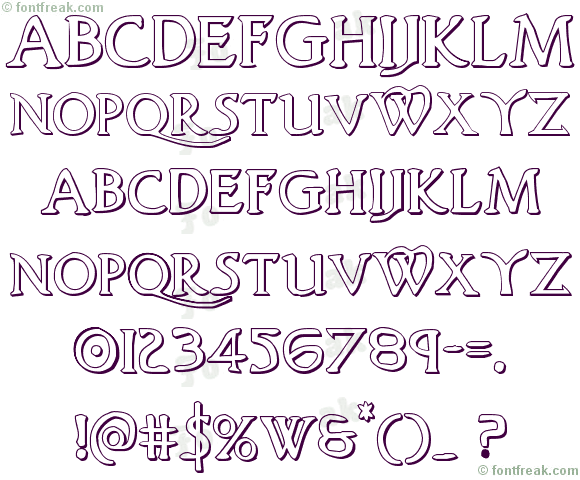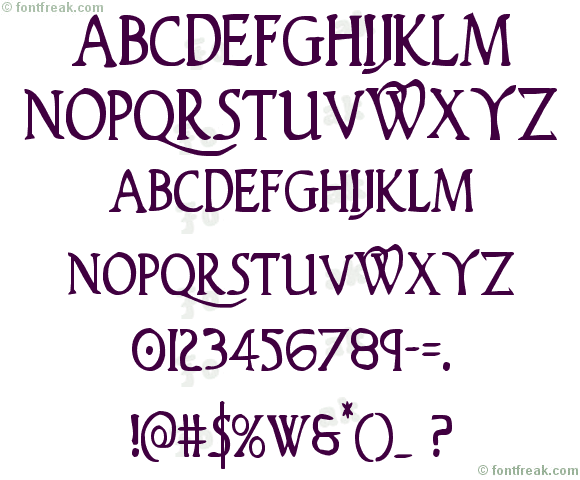
Woodgod Expanded
Woodgod Expanded, designed by Daniel Zadorozny, is a striking display font that captures attention with its unique visual characteristics. This font falls into the decorative category, making it ideal for projects that aim to stand out. With its bold stroke weight and condensed letterforms, Woodgod Expanded offers a sense of strength and presence. The italic and roitalic styles introduce an intriguing 3D effect, enhancing its dynamic appearance while maintaining readability. The spacing is thoughtfully crafted, allowing for effective use in various applications without sacrificing clarity.
This font is exceptionally versatile, making it suitable for a range of creative projects. Designers can use Woodgod Expanded for eye-catching movie posters that demand immediate attention, or for restaurant menus that seek to convey a modern yet elegant atmosphere. Its playful nature also makes it a great choice for wedding invitations, where couples want to express their individuality. Additionally, content creators can utilize this font in social media graphics or promotional materials that require a bold statement.
Targeting graphic designers, small business owners, and content creators alike, Woodgod Expanded offers a refreshing alternative to conventional typefaces. Its unique style helps brands convey personality and creativity, allowing them to connect with their audience on a more profound level.
What sets Woodgod Expanded apart is its perfect blend of strength and whimsy, making it a standout choice in the world of decorative fonts. The Woodgod Expanded font free download opens the door for anyone looking to elevate their design projects with a typeface that resonates with both boldness and charm. Whether you’re crafting an eye-catching logo or designing a memorable flyer, this font delivers an unforgettable visual experience that truly captivates.